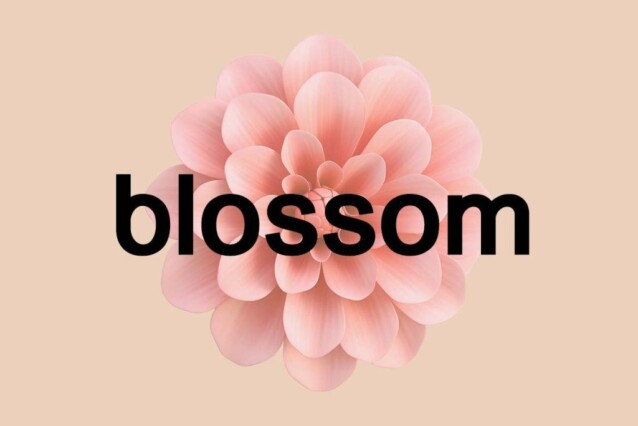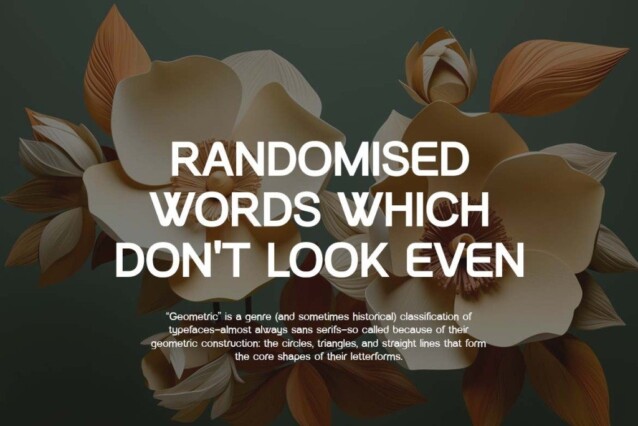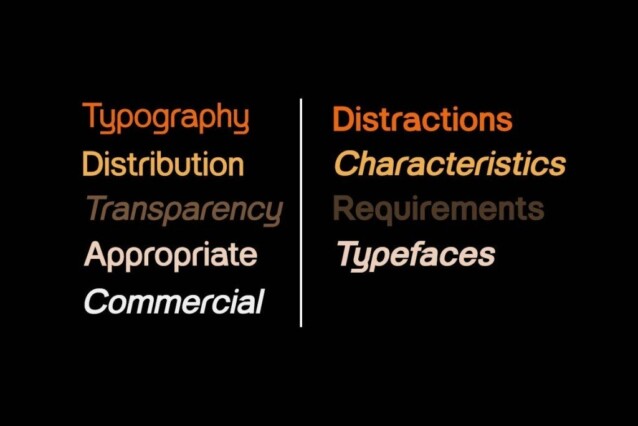
Forehands Rounded Font Family is a professional and modern sans-serif font. Made from font designer named UICreative. This font is ideally suited for a wide variety of projects, such as signature, stationery, logo, wedding, typography quotes, magazine or book covers, website headers, branding, and more. Also, fashion-related branding or editorial design displays both masculine and feminine qualities.